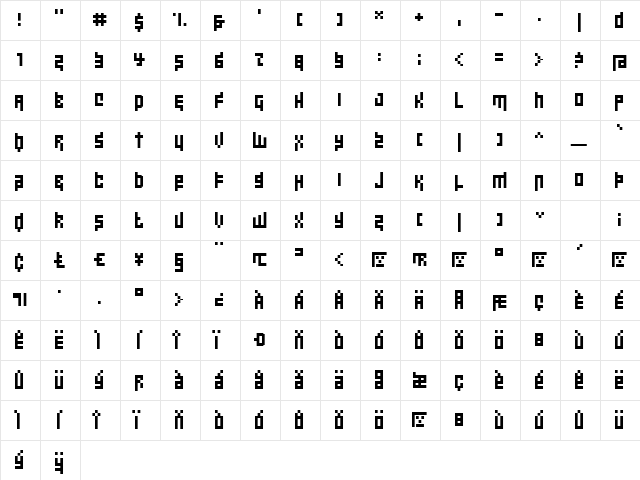
RufusRed Regular
Design Context for RufusRed Typeface
RufusRed offers clean, dependable letterforms without strong stylistic allegiance, making it a practical choice for designers who need flexibility.